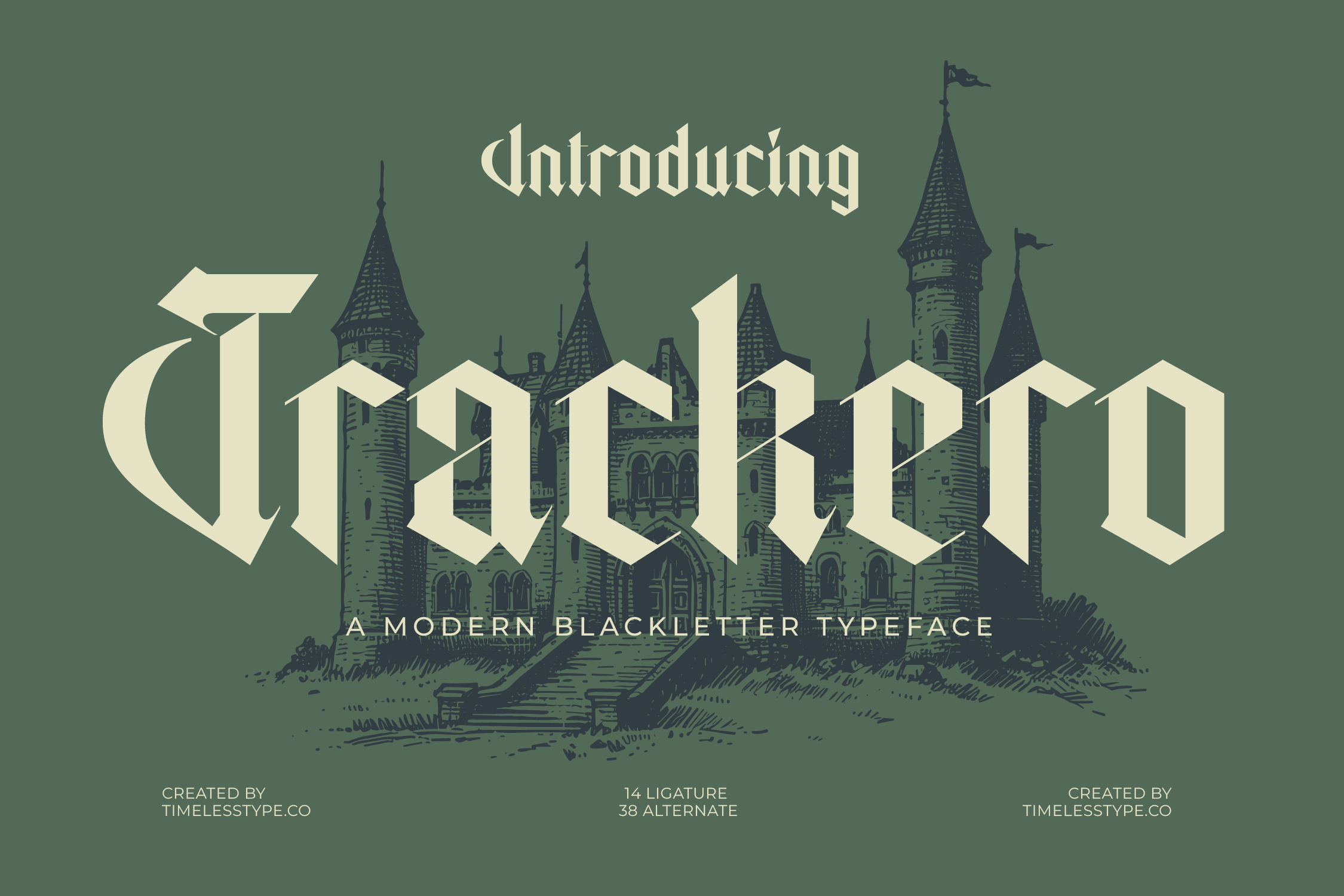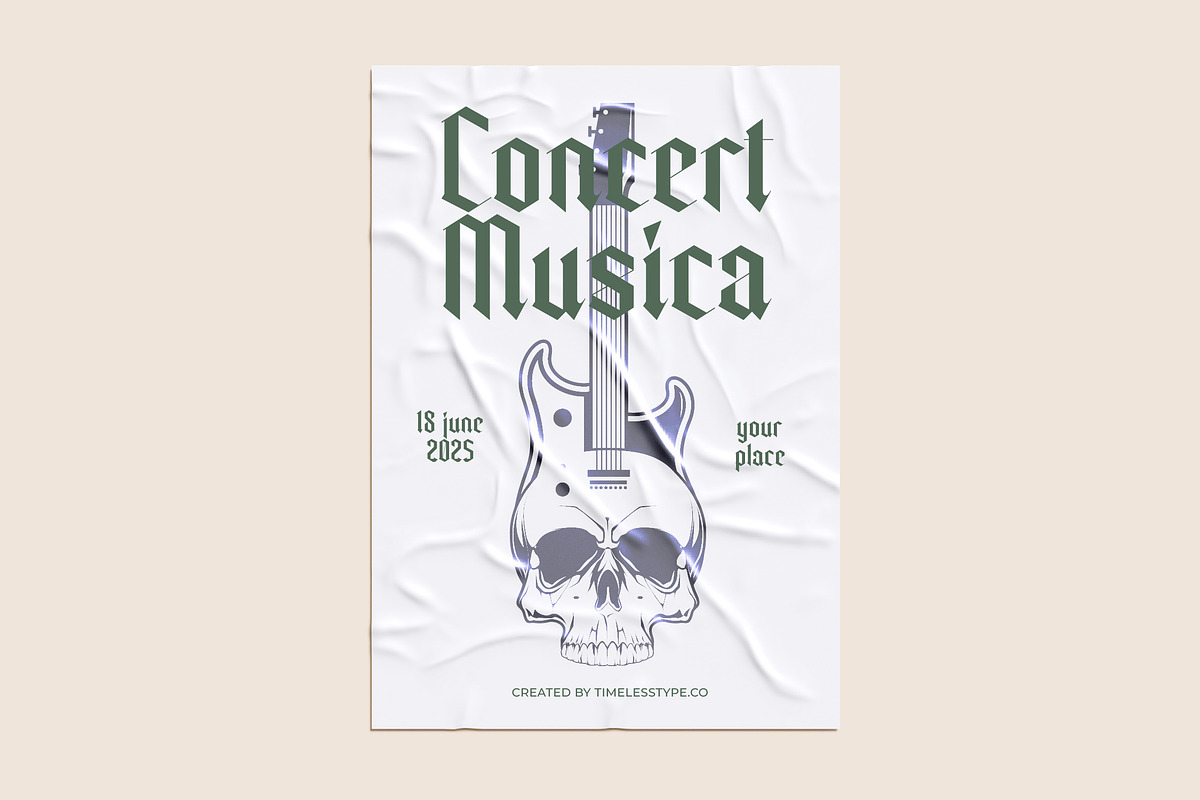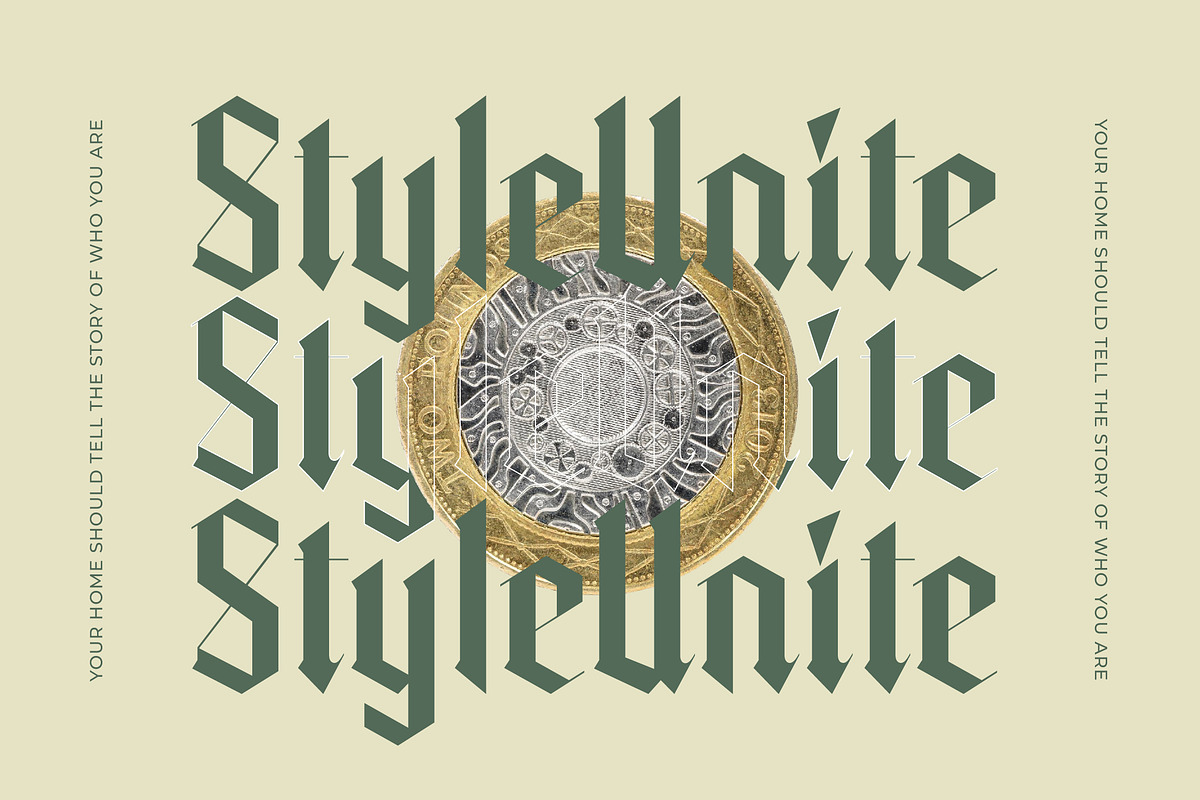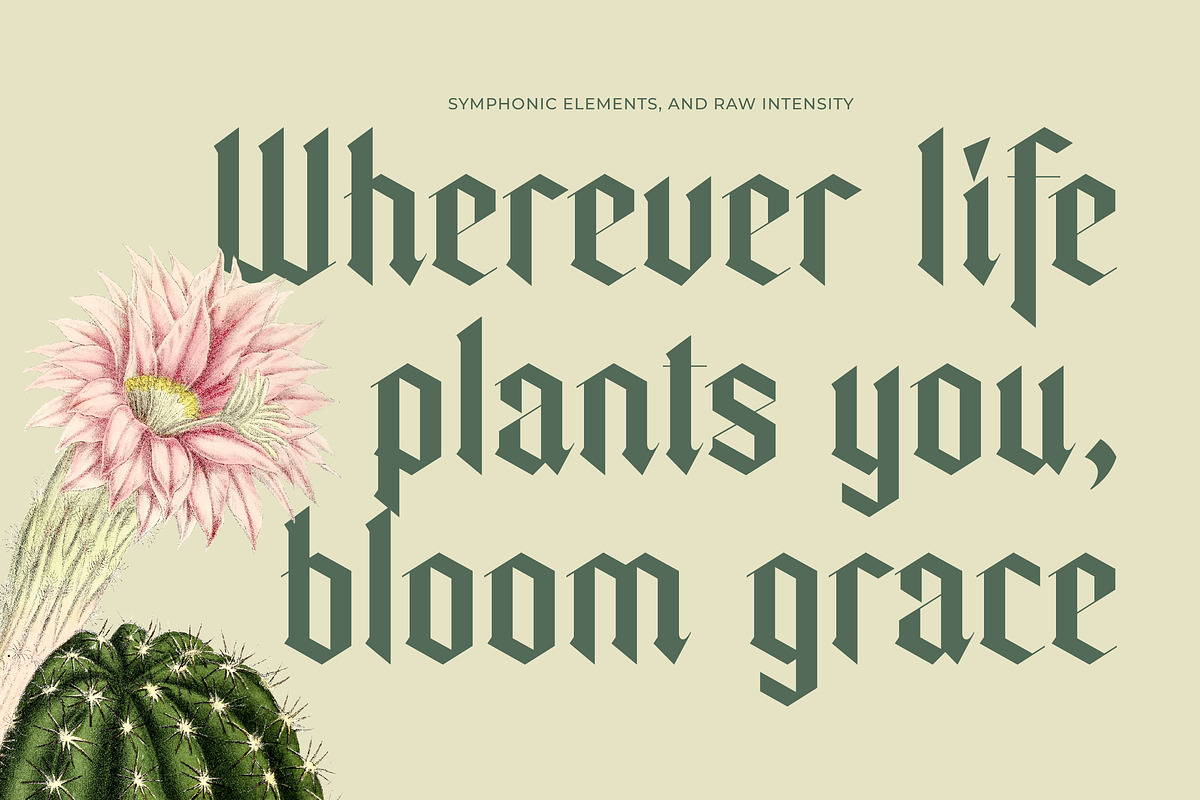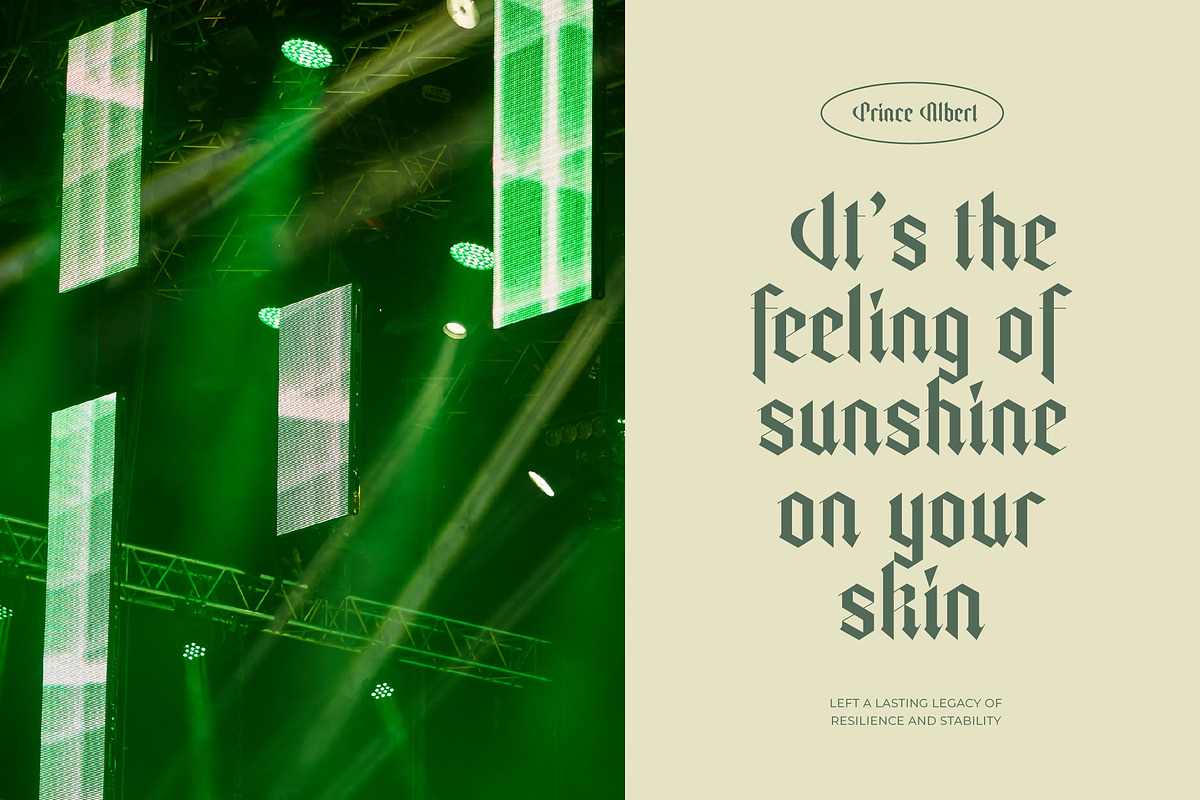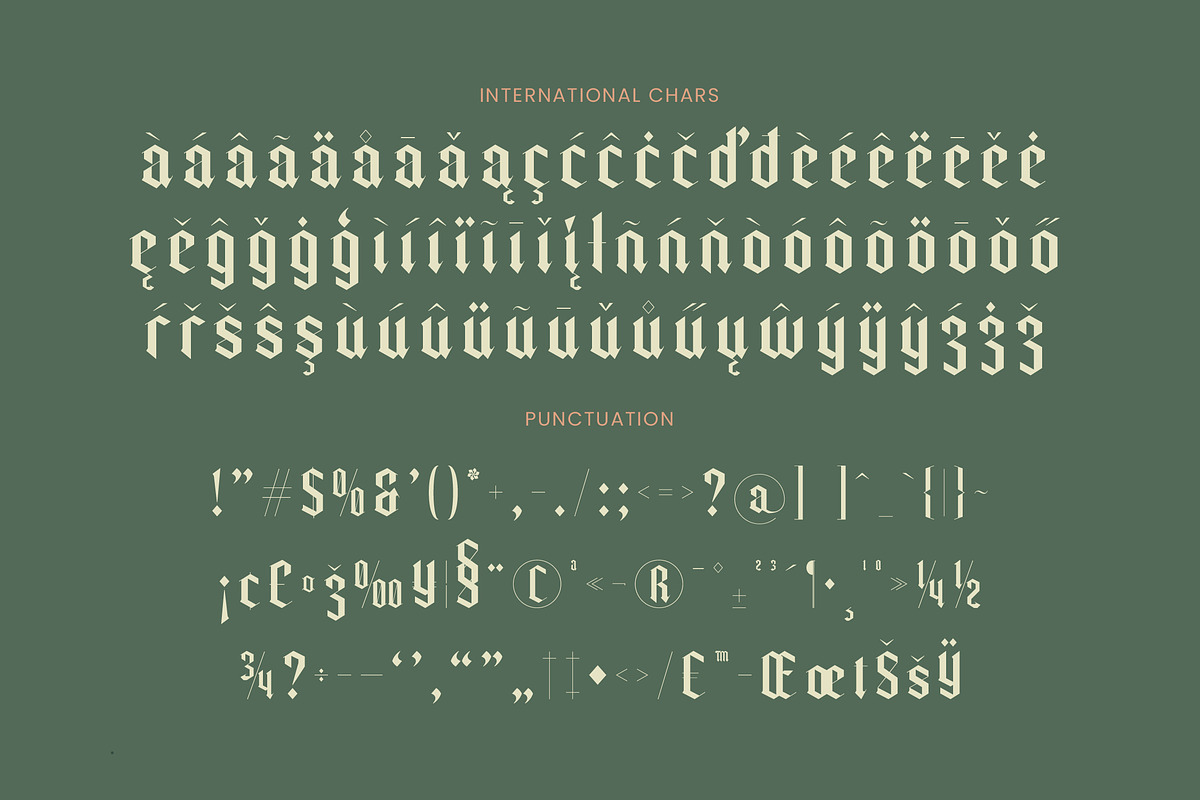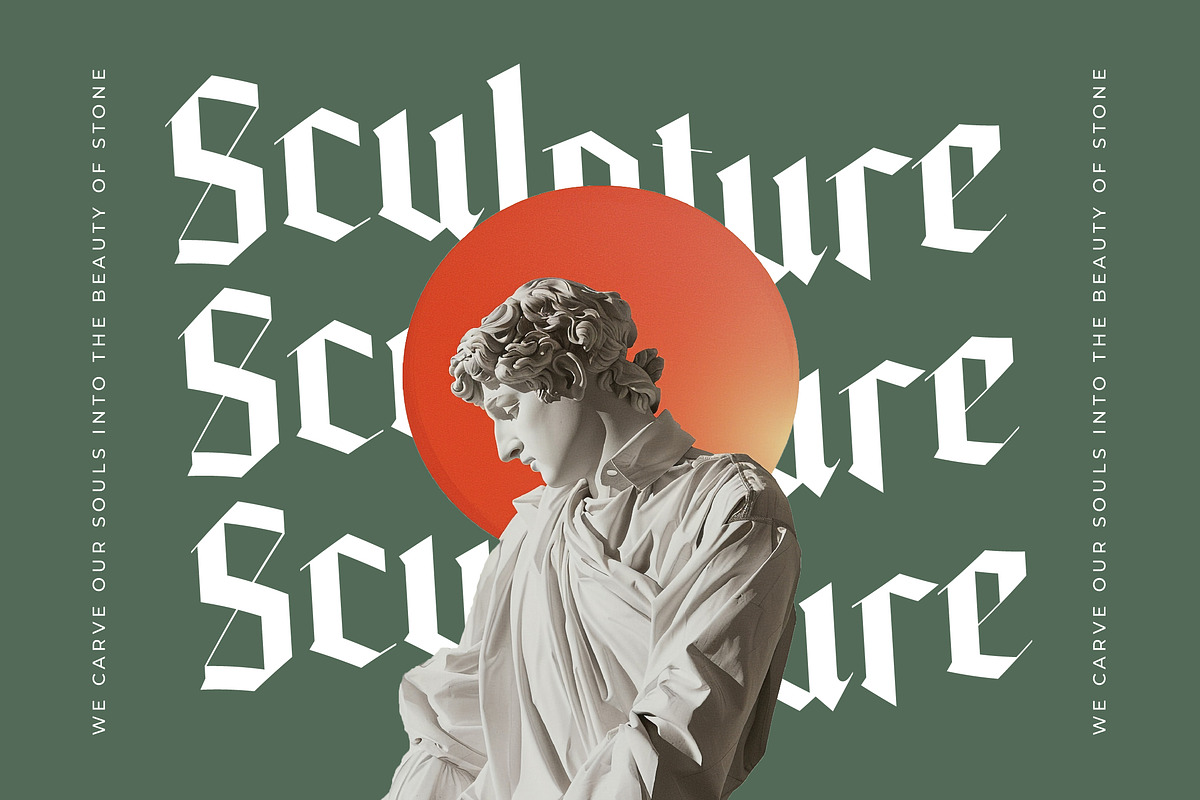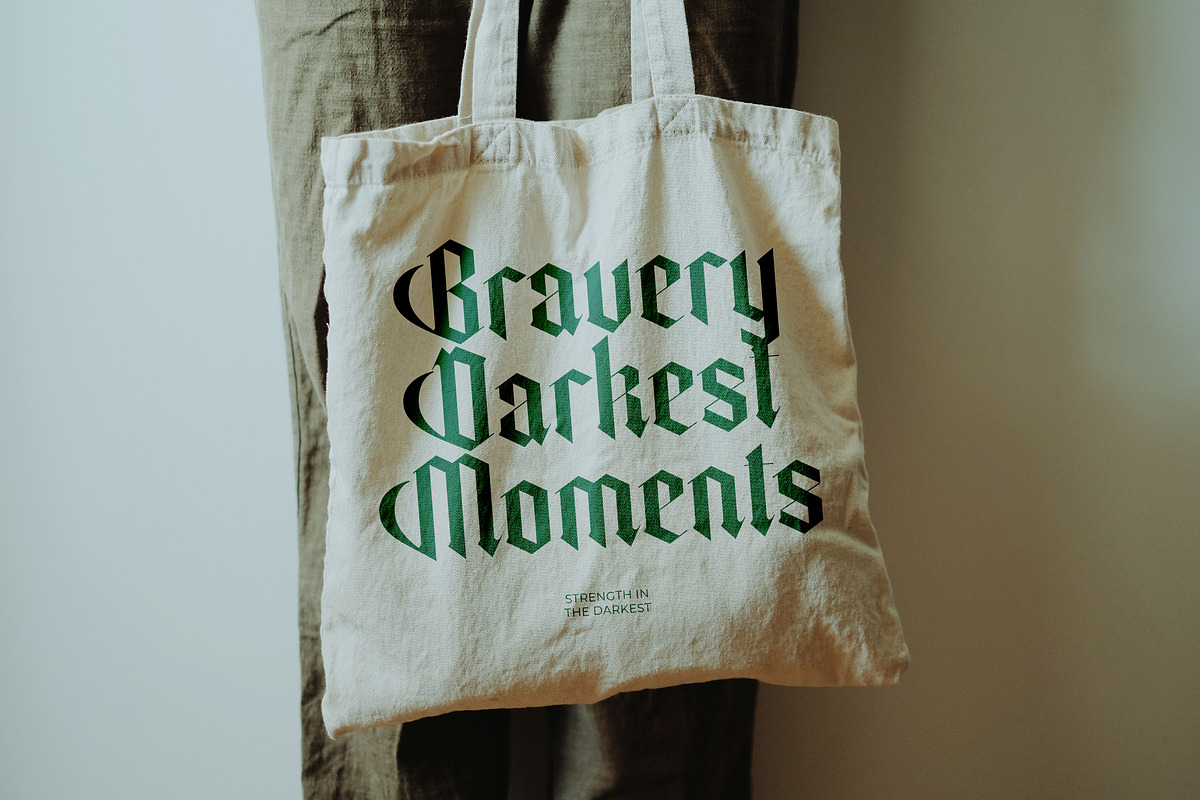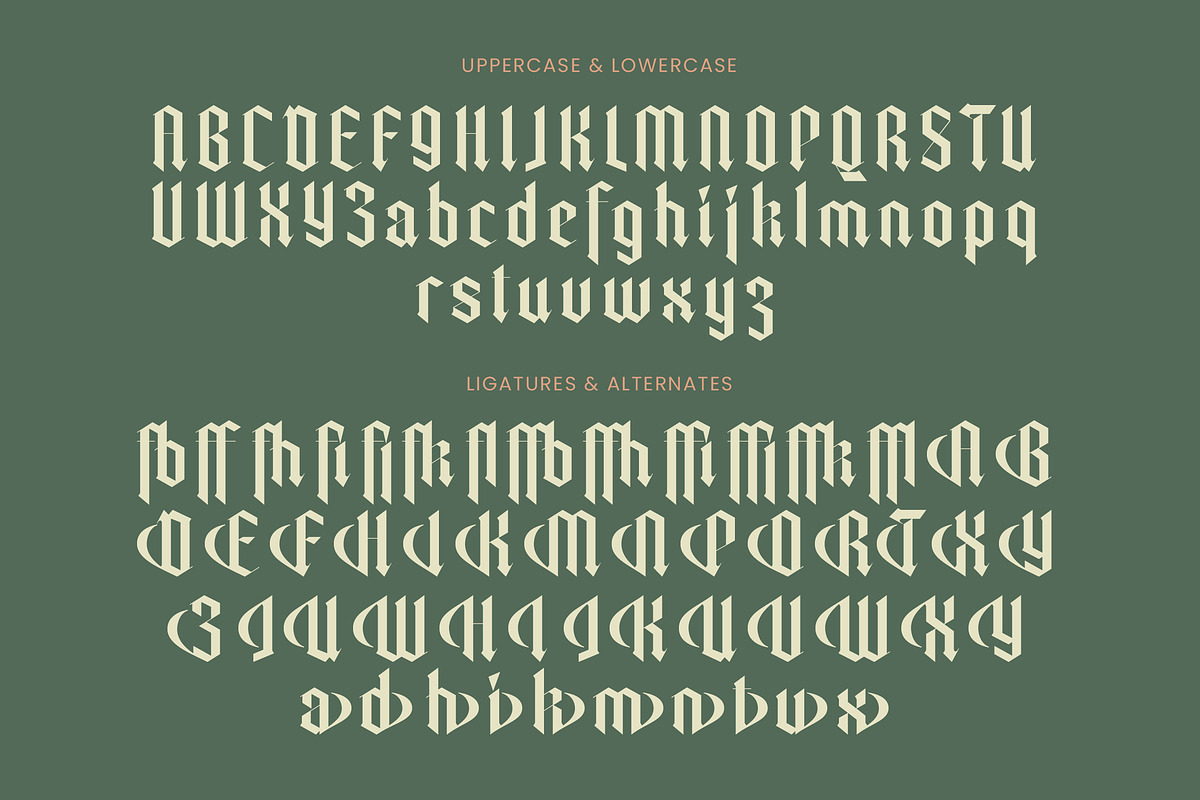
Trackero Modern Blackletter Typeface
Trackero - Modern Blackletter Typeface , from Timelesstype.Co , Suitable for any projects such as: logos, branding projects, homeware designs, product packaging, mugs, quotes, posters, shopping bags, t-shirts, book covers, name card, invitation cards, greeting cards, label, photography, watermark, special events, and all your other luxury and beautiful projects that need a Luxury Serif taste.
- Ligature 14 Alternate 38